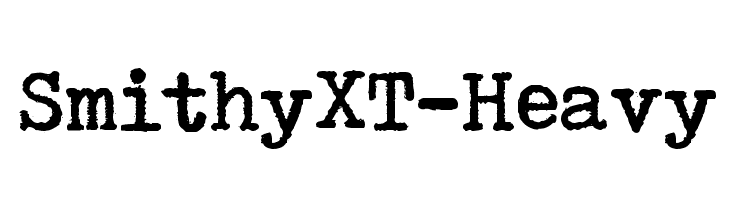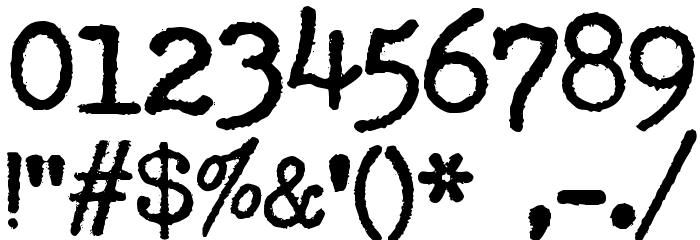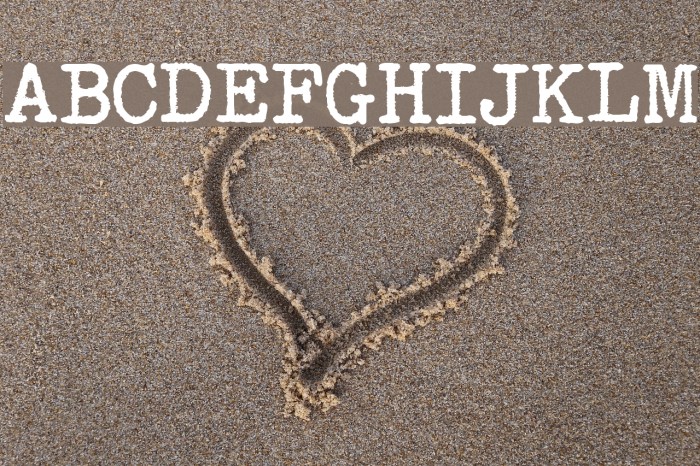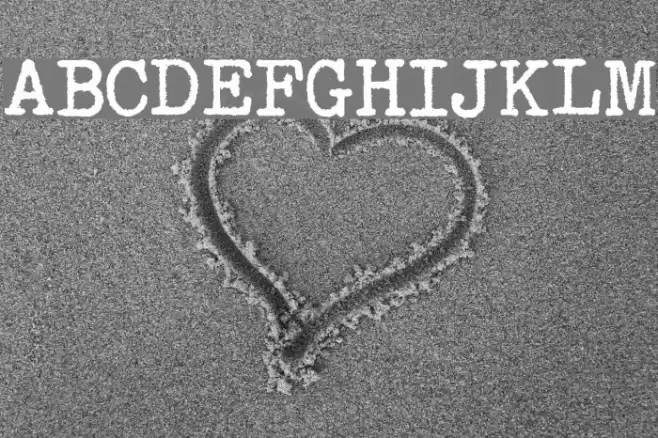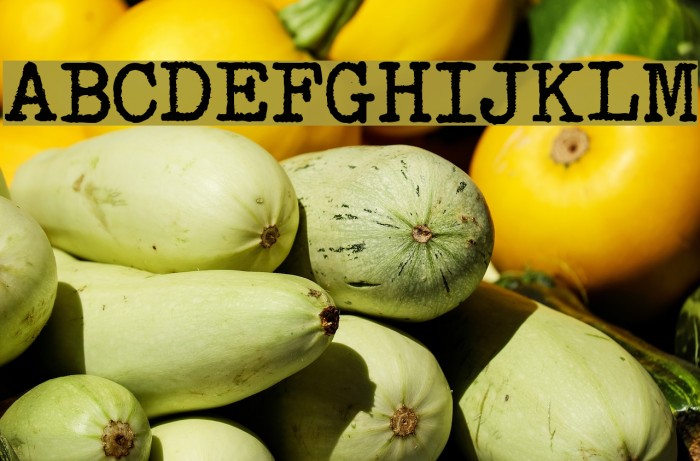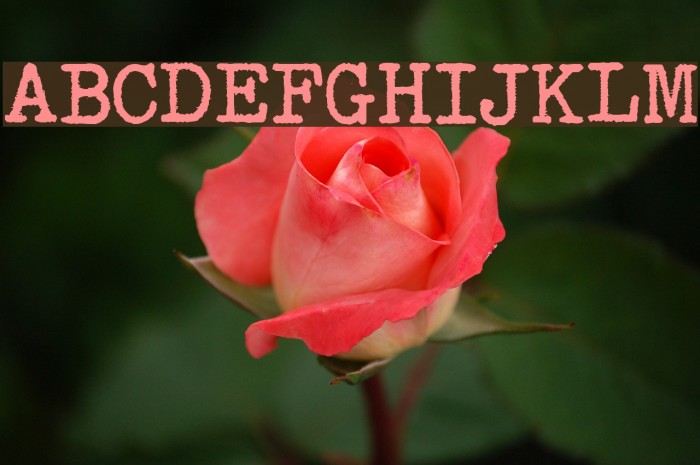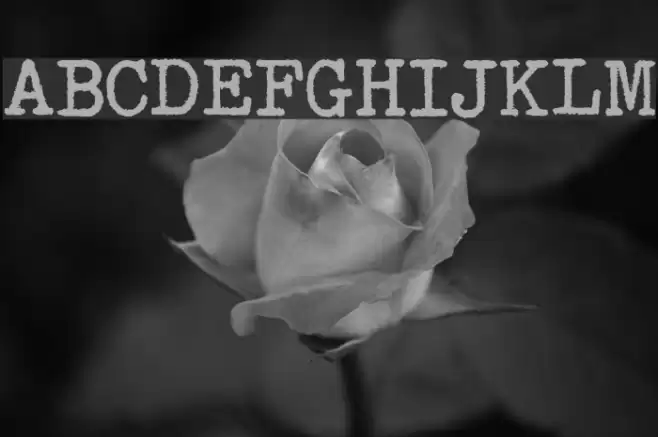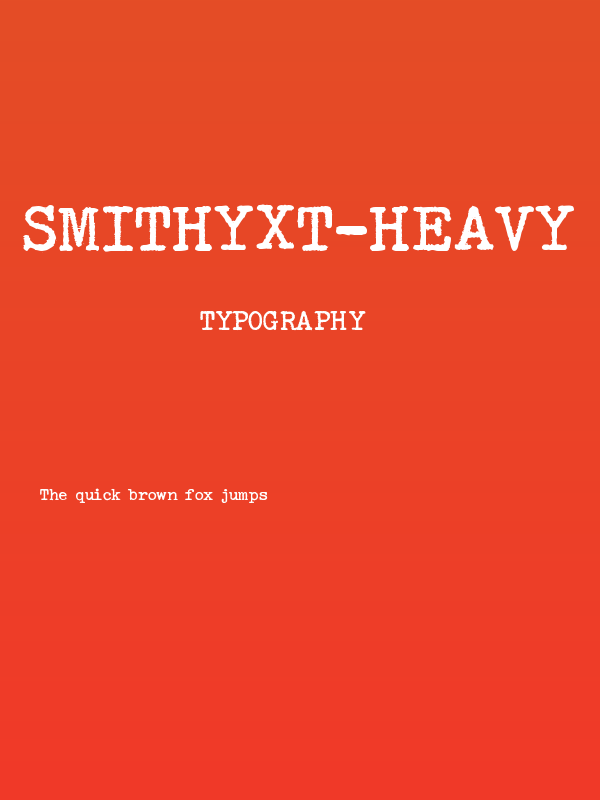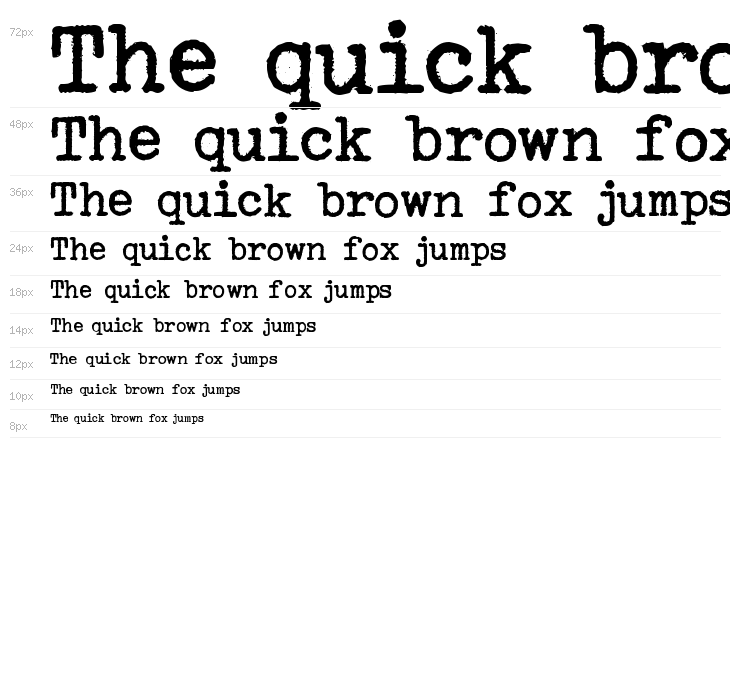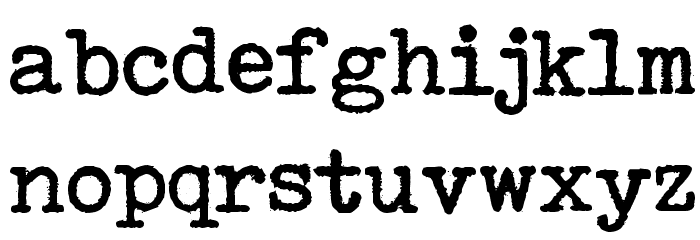
SmithyXT-Heavy Font
SmithyXT-Heavy Description
This font exhibits a bold, textured appearance reminiscent of typewriter or vintage print styles. The characters are robust and slightly irregular, giving them a handcrafted feel. The uppercase and lowercase letters maintain a consistent weight, contributing to a cohesive look. Numerals and special characters follow the same design, ensuring uniformity across all glyphs. The font's rough edges and distressed look add character, making it ideal for projects that require a rustic or retro aesthetic. Its strong presence makes it suitable for headlines or titles where impact is essential.